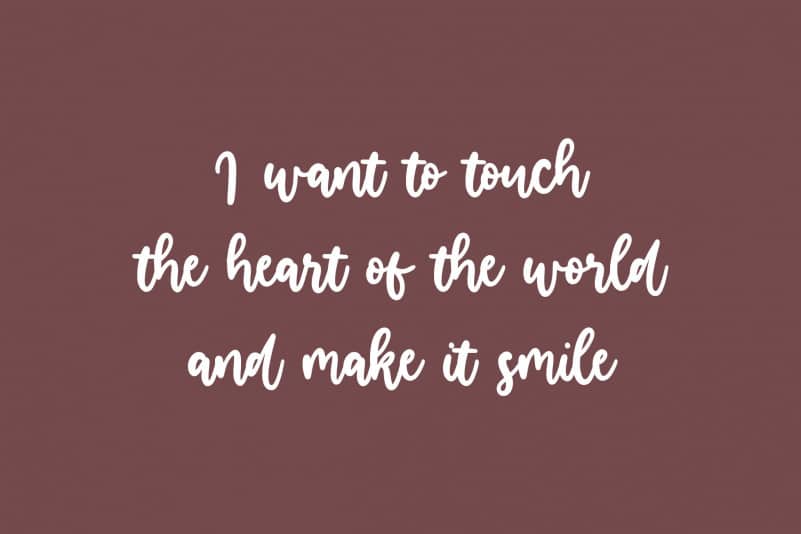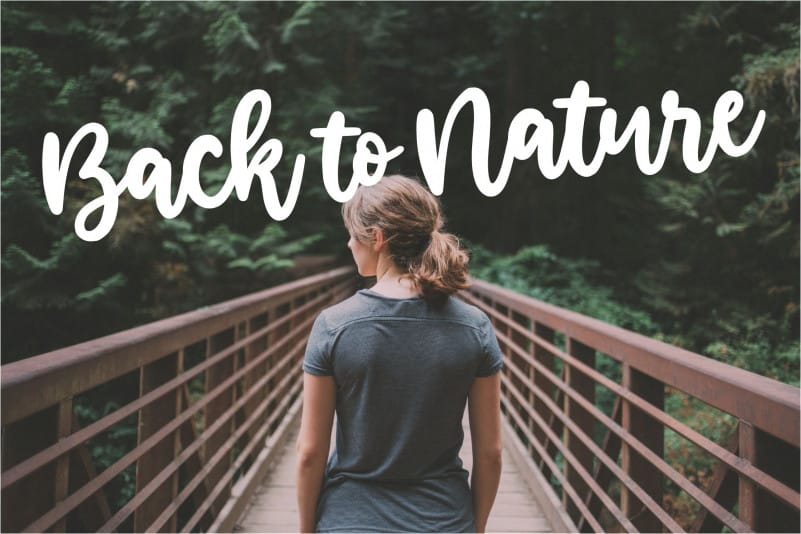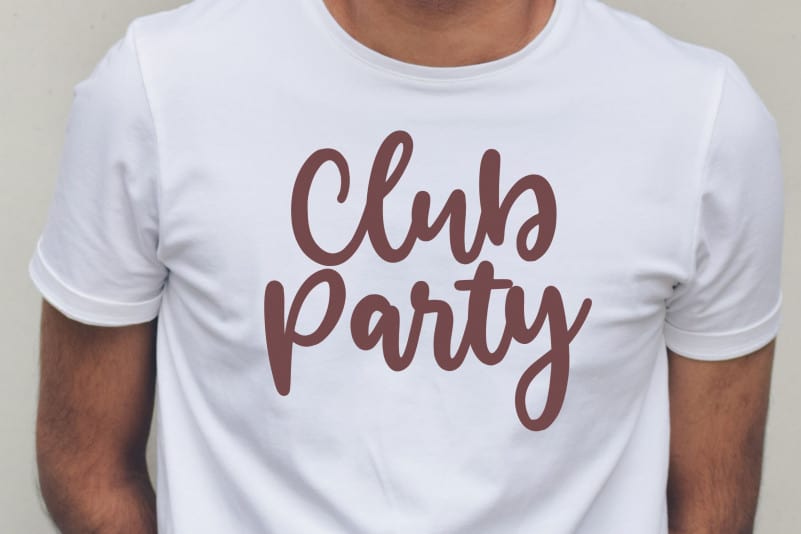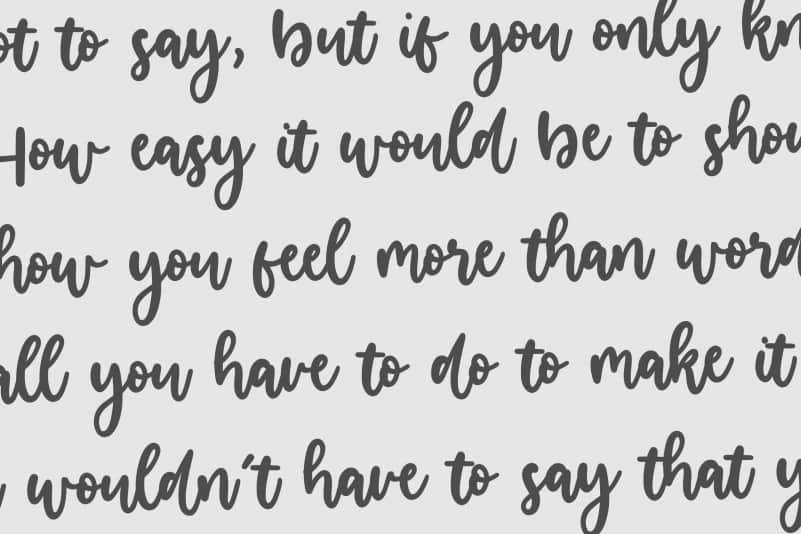
Smilestar Modern Handwritten Font
Proudly Present, Smilestar Modern Handwritten Font.
Smilestar is a Fat Modern Handwritten Font.
It is perfect for product packaging, branding project, megazine, social media, wedding, or just used to express words above the background.